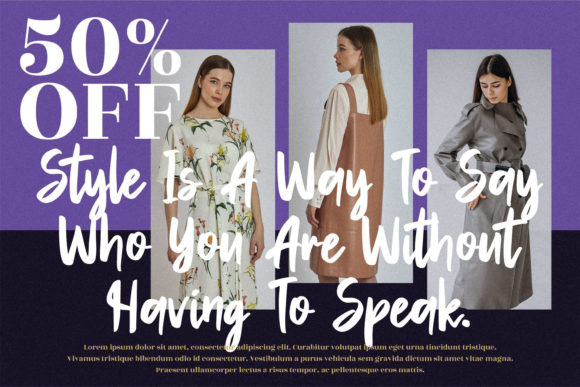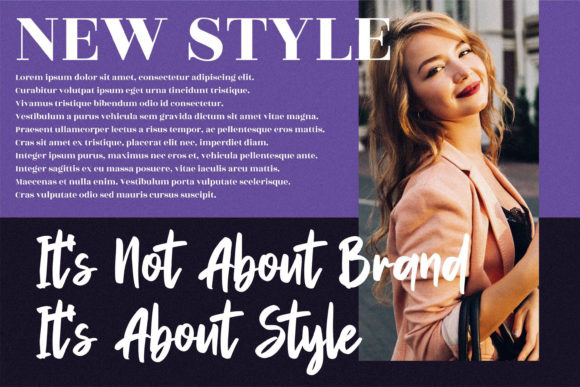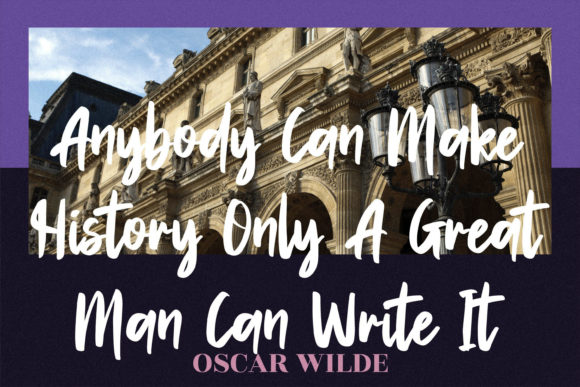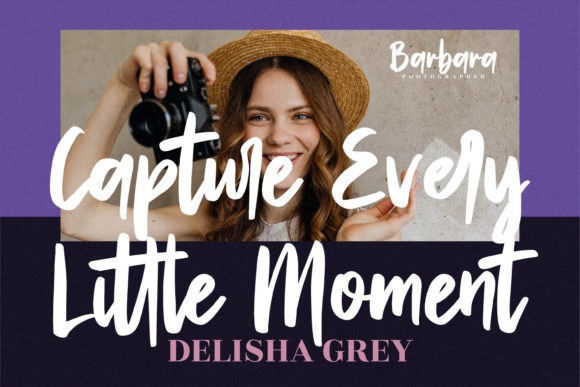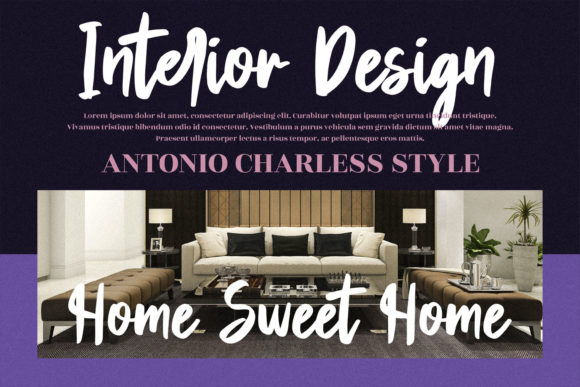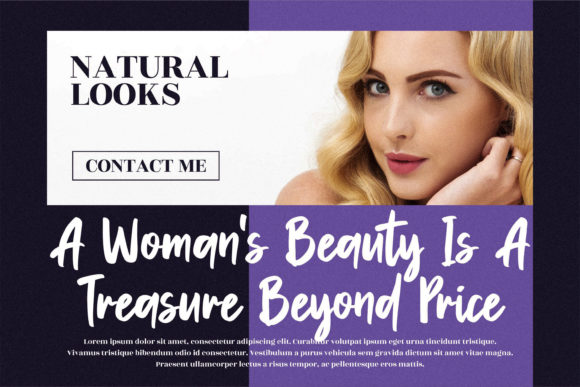
Introducing Aprilia Marelo Font: Elevate Your Designs with a Stylish Touch
Are you tired of using the same old fonts for your designs? Do you want to add a touch of nostalgia and personality to your headlines and logotype projects? Look no further than Aprilia Marelo Font, a gorgeous and bold handwritten font that’s sure to take your designs to the next level.
A Font that Exudes Confidence and Dynamism
Aprilia Marelo Font is a masterpiece of font design, crafted to give your designs a strong, confident, and dynamic feel. With its bold and expressive strokes, this font reads as a statement piece, demanding attention and making a lasting impression on your audience. Whether you’re working on a logo, headline, or any other design project, Aprilia Marelo Font is the perfect choice to add a touch of sophistication and style.
Add a Touch of Nostalgia to Your Designs
Aprilia Marelo Font is not just a font, it’s a design statement. With its unique and distinctive style, this font can add tons of nostalgic character to your designs, transporting your audience back to a bygone era. Whether you’re working on a vintage-inspired project or simply want to add a touch of whimsy to your designs, Aprilia Marelo Font is the perfect choice.
One of the best things about Aprilia Marelo Font is that it’s PUA encoded, which means you can access all of the glyphs and swashes with ease. This makes it easy to customize your designs and add your own personal touch. With PUA encoding, you can access a wide range of alternative characters, ligatures, and swashes, giving you endless possibilities for creative expression.
Aprilia Marelo Font is a versatile font that’s perfect for designers and crafters alike. Whether you’re working on a professional design project or a personal crafting project, this font is sure to inspire your creativity. With its bold and expressive style, Aprilia Marelo Font is perfect for a wide range of projects, including:
- Headlines and titles
- Crafting projects, such as scrapbooking and journaling
Key Features of Aprilia Marelo Font
Here are some of the key features that make Aprilia Marelo Font stand out:
- Bold and expressive handwritten style
- Strong, confident, and dynamic feel
- Nostalgic character and whimsical touch
- Perfect for logos, headlines, and other design projects
- Versatile and suitable for a wide range of projects
In conclusion, Aprilia Marelo Font is a stunning and versatile font that’s perfect for designers and crafters looking to add a touch of style and personality to their projects. With its bold and expressive style, PUA encoding, and nostalgic character, this font is sure to elevate your designs and make a lasting impression on your audience. So why wait? Download Aprilia Marelo Font today and start creating stunning designs that demand attention!